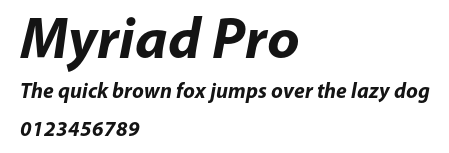
Myriad Pro Preview
• Font Name: Myriad Pro
• Designer: Robert Slimbach and Carol Twombly
About Myriad Pro.ttf
Myriad Pro.ttf is a modern, elegant sans-serif font designed for ultimate readability and visual harmony. Perfect for branding, headlines, web design, and print materials.